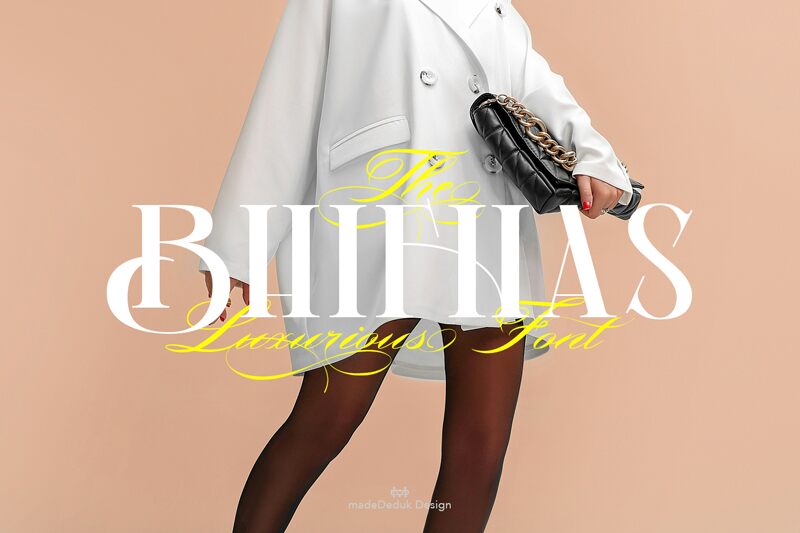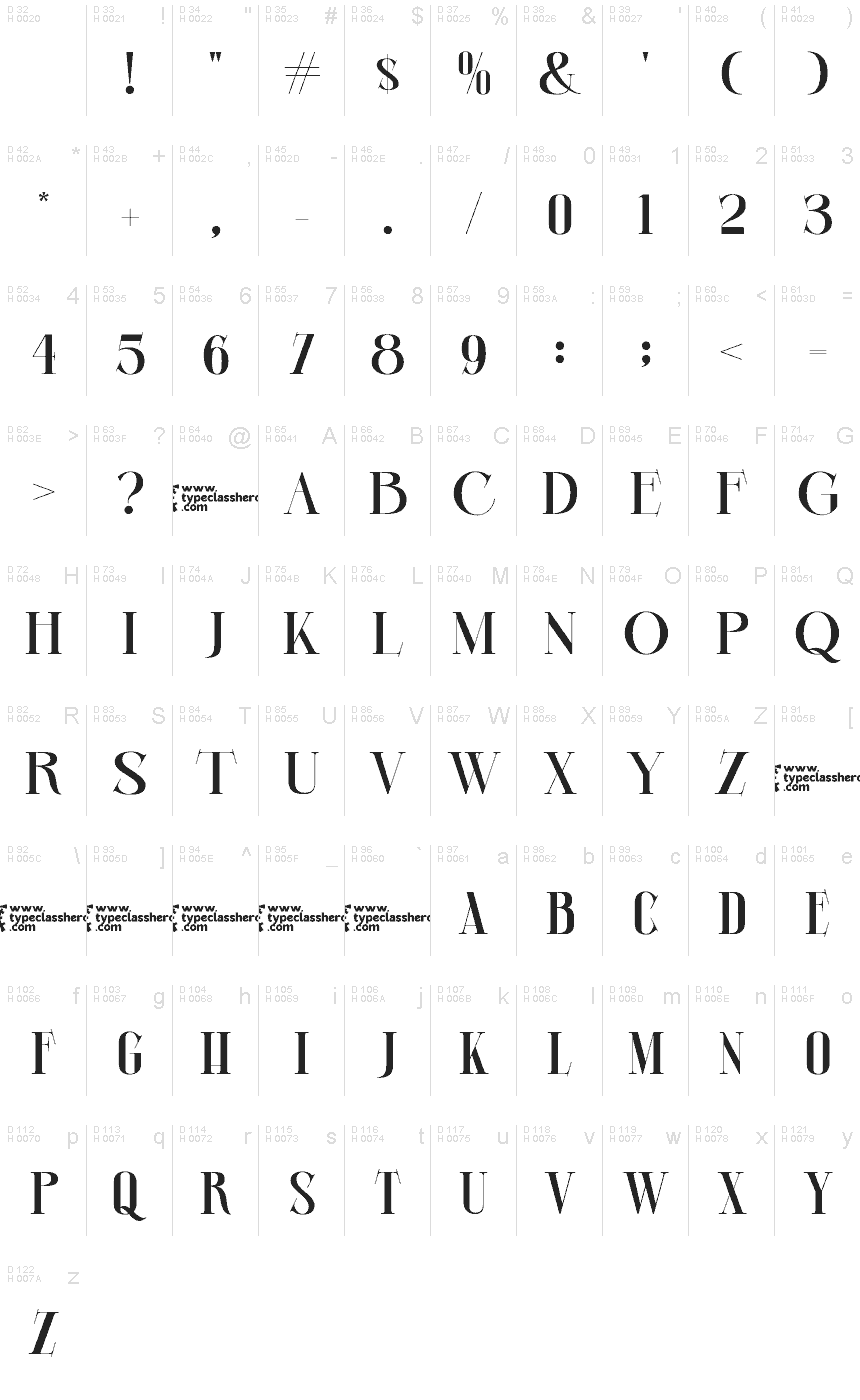
Bhifhas
Bhifhas font is a condensed serif typeface created by madeDeduk, characterized by its sophisticated elegance and classic, timeless charm. With high contrast and refined detailing, this font exudes an air of formality and eloquence that's perfect for creating an instant impression.
Free to use, Bhifhas is ideal for branding projects, product labeling designs, logotype development, poster titles or subheadings layout. Since the font is pure gold in print design projects or digital concepts as well; it’s possible to use it on business cards or websites as an elegant typographic option where the main text needs to blend perfectly with other visual elements present there.